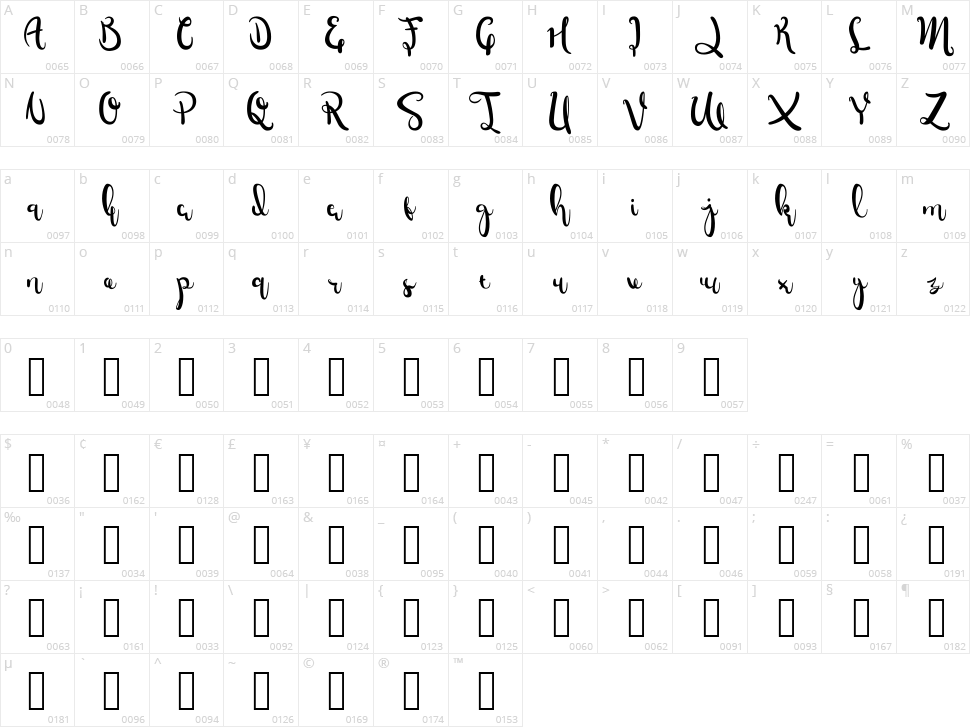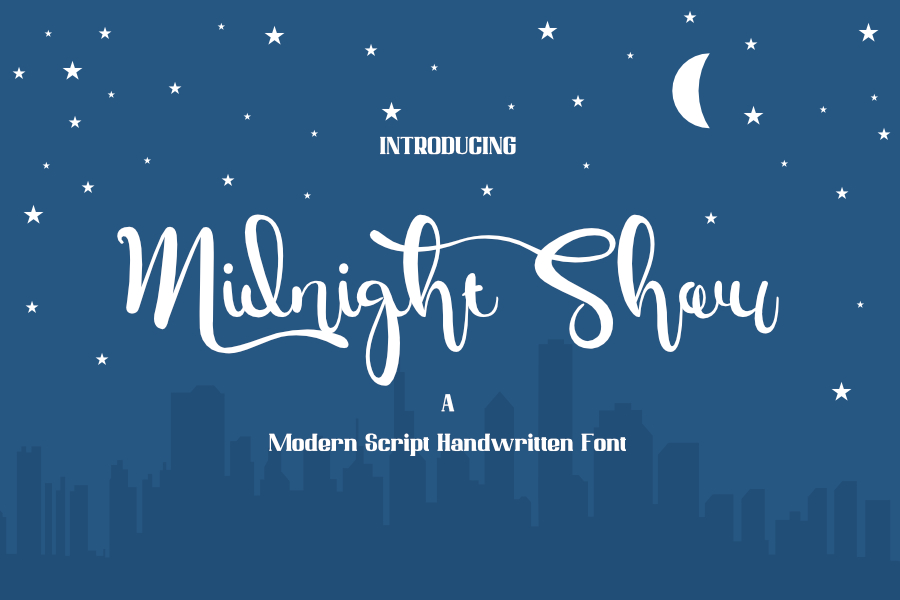
Midnight Show
Say Hello to Midnight Show! Midnight Show is a Modern Script Handwritten Font. It has a 'Handwritten style' which will give your design a natural, fun and mature look feels. Midnight Show is perfect for Your signature brand, coffee brand, store sign logo design and other designs which needs to look natural, fancy, serious, freedom, fun and happiness!